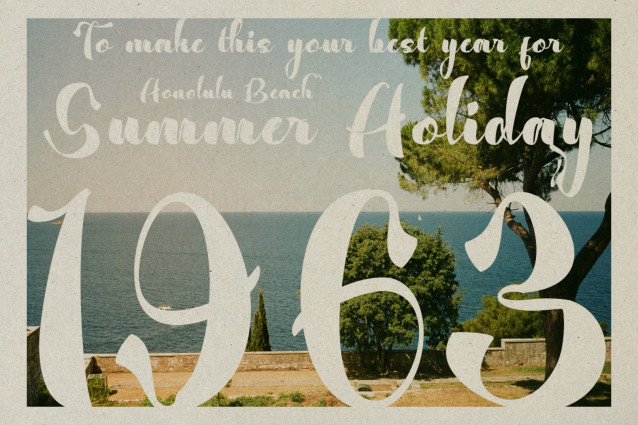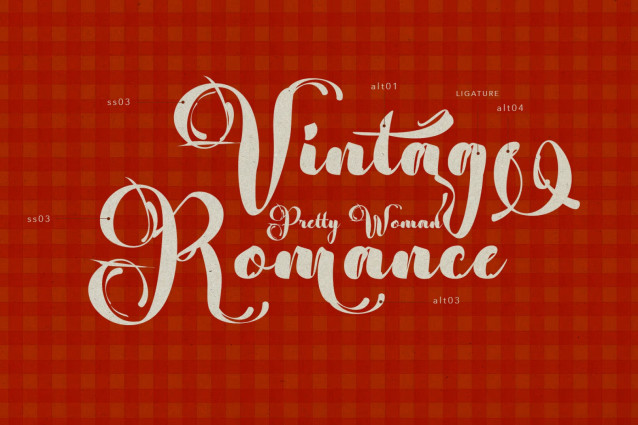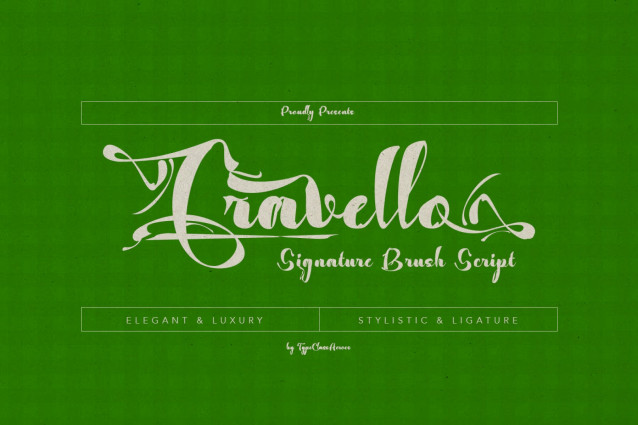
Introducing Cravello, this font is a brush script style with flowing letterforms, combined with elegant and decorative ornamentation.The combination of thick and thin lines creates an artistic, luxurious, and eye-catching impression.
This font is suitable for food branding, logos, invitations, titles, and other promotional designs. It creates a unique, luxurious, and memorable impression. It also enhances product names, providing a more distinctive and strong identity, and conveying a sense of quality. The decorative letterforms make product names stand out, making them easily recognizable by consumers.